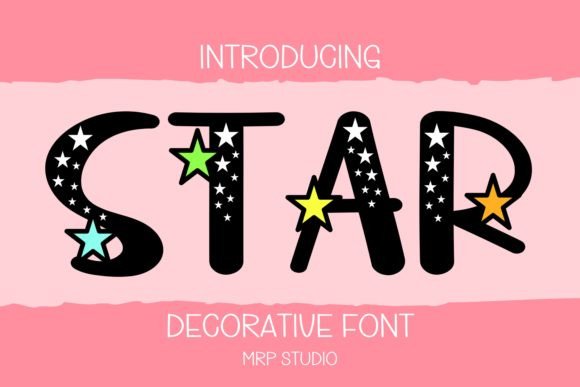
Looking for the perfect font for your birthday designs? Look no further than Star Font, the best decorative font for any birthday project! Created by MRP STUDIO, this sweet and adorable font is sure to add a touch of joy and romance to all of your design ideas.
With its gentle curves and playful lettering, Star Font is the ideal choice for birthday invitations, greeting cards, and any other project where you want to convey a sense of warmth and happiness. Whether you're celebrating a milestone birthday or just want to add some fun to your designs, Star Font is the perfect choice.
But don't let its playful appearance fool you - Star Font is also a highly versatile font that can be used in a wide range of design projects. From branding to advertising, Star Font can help elevate your message and make it stand out from the crowd.